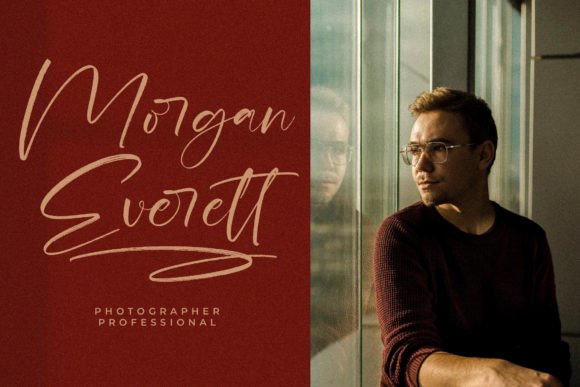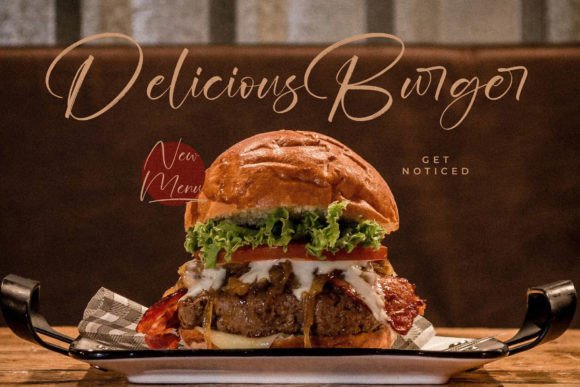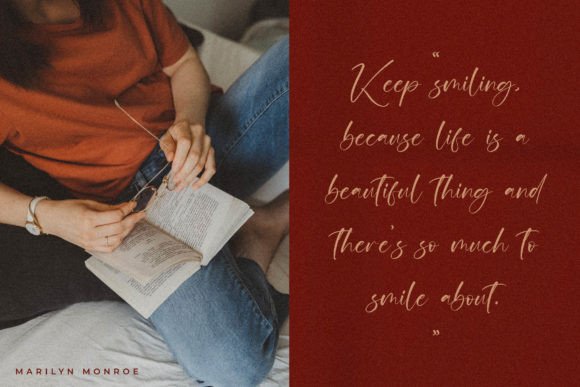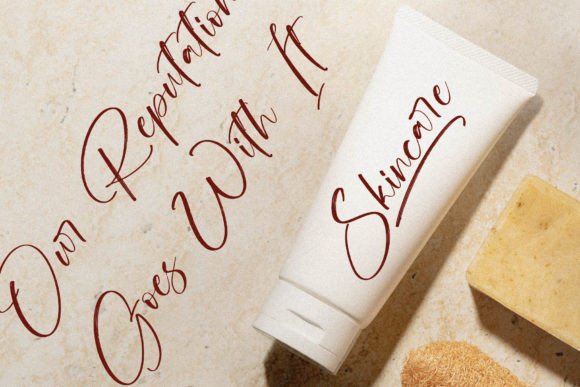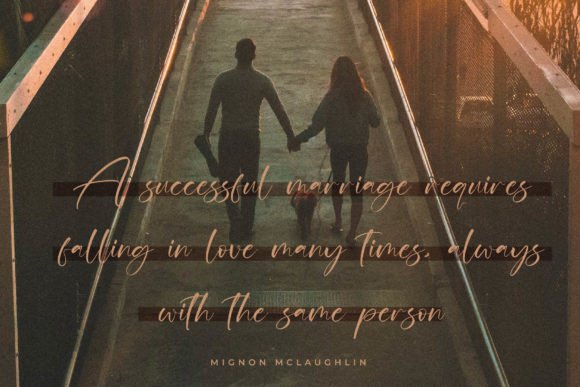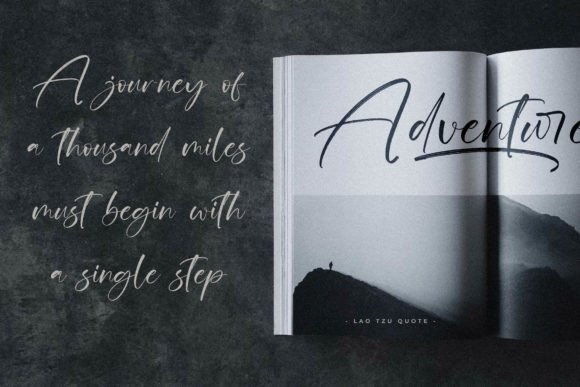
The Perfect Brush Stroke: Unlocking the Magic of Gerlyonz Jimakes Font
Have you ever sat down with a blank piece of paper and a pen, waiting for inspiration to strike? The scratch of the pen on paper, the gentle flow of ink, and the beauty of imperfection – that’s when the magic happens. For designers, this moment is a rare treasure, and the right font can make all the difference.
Enter Gerlyonz Jimakes Font, a stunning handwritten font that brings a touch of elegance to any design. With its unique brush stroke style, this font is perfect for creating personalized invitations, greeting cards, and logos that exude warmth and sophistication. Whether you’re a seasoned designer or a hobbyist, Gerlyonz Jimakes Font is a valuable addition to your toolkit, offering endless possibilities for creative expression.
Key Features of Gerlyonz Jimakes Font
- Font Family: Gerlyonz Jimakes Font is a unique, hand-drawn typeface with 6 styles (Regular, Italic, Bold, Bold Italic, Condensed, Condensed Italic).
- Unique Characteristics: Features hand-drawn elements, subtle texture, and a mix of modern and vintage flair, making it perfect for creative and artistic designs.
Gerlyonz Jimakes Font Review
At first glance, the Gerlyonz Jimakes font seems like an interesting choice for designers. It has a unique blend of modern and vintage elements that can add a touch of sophistication to any design project. ✨ I particularly like the way the font handles letter spacing and kerning, which gives it a more refined and polished look.
However, there are some limitations to consider. ⚠️ The font’s character set is somewhat limited, and it may not be the best choice for projects that require a wide range of special characters or languages. Additionally, the font’s bold and italic styles can sometimes look a bit awkward, especially when used in combination with the regular style.
Overall, I think the Gerlyonz Jimakes font is a solid choice for designers who want to add a bit of personality to their projects. It’s a great option for titles, headings, and other display text, but may not be the best choice for body text or large blocks of text.
Pros:
- Unique blend of modern and vintage elements
- Refined and polished letter spacing and kerning
- Great for titles, headings, and display text
Cons:
- Limited character set
- Awkward bold and italic styles in some cases
Gerlyonz Jimakes Font is a unique and eye-catching font that can be used in a variety of creative projects. Here are some tips for getting the most out of it:
- Use it for titles and headings to add a touch of whimsy and personality.
- Combine it with other fonts to create a visually interesting and eclectic look.
- Experiment with different font sizes and colors to create a dynamic and engaging design.
Alternatives to Gerlyonz Jimakes Font
Great Vibes Font is a beautiful, elegant script font that is perfect for creating a sophisticated and stylish look. It is ideal for use in wedding invitations, menus, and other formal events. It has a similar flair to Gerlyonz Jimakes Font but is more refined and polished.
Comparison: Great Vibes Font is more elegant and refined compared to Gerlyonz Jimakes Font, making it a better choice for formal events. However, it lacks the quirky charm of Gerlyonz Jimakes Font.
Carolyna Pro Font is a modern, elegant script font that is perfect for creating a luxurious and high-end look. It is ideal for use in fashion branding, packaging, and other design projects where a touch of sophistication is needed. It has a similar level of flair to Gerlyonz Jimakes Font but is more polished and refined.
Comparison: Carolyna Pro Font is more polished and refined compared to Gerlyonz Jimakes Font, making it a better choice for high-end design projects. However, it lacks the quirky charm of Gerlyonz Jimakes Font.
Q: Can I customize the Gerlyonz Jimakes Font for a specific project?
Yes, you can customize the Gerlyonz Jimakes Font for your project. Our font is designed to be highly customizable, and you can adjust the font’s weight, width, and other properties using various design tools. Additionally, we offer custom font modification services for complex projects.